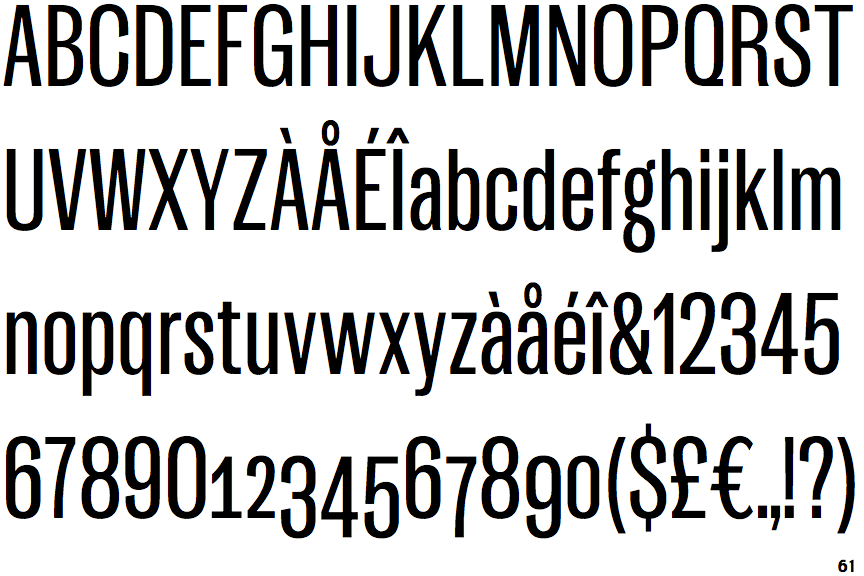
Dean Gothic Compressed
One of the Tallest sans-serif fonts for narrow spaces.
Designers: Tim Vanhille and Inès Davodeau Year: 2025 Publisher: Blaze Type An OpenType font that includes both lining and oldstyle figures. |